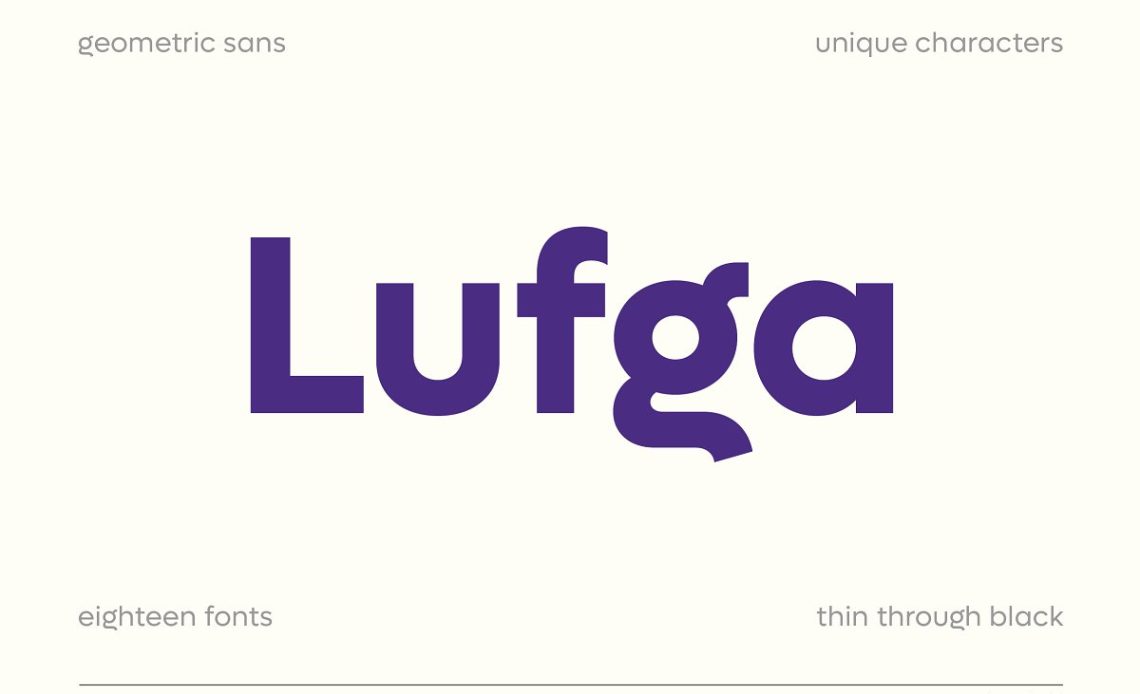
Are you looking for a font that is simple yet unique? Look no further than the Lufga Font Family! Created by Adam Ladd, this geometric sans serif font family is perfect for all your branding applications. And now, with our 80% OFF introductory sale, you can purchase the entire family for only $21 (normal price $109)!
Lufga's minimal design and low contrast give it a clean and modern appearance while still maintaining some retro tones. Its standout lowercase g and u characters are perfect for making your brand recognizable, and with stylistic alternates, you can give your presentations a different twist.
The font's large x-height and thin through black weights with italics make it versatile for both workhorse text and display font applications. It's perfect for branding, advertising, packaging, headlines, magazines, websites, logo designs, and more.